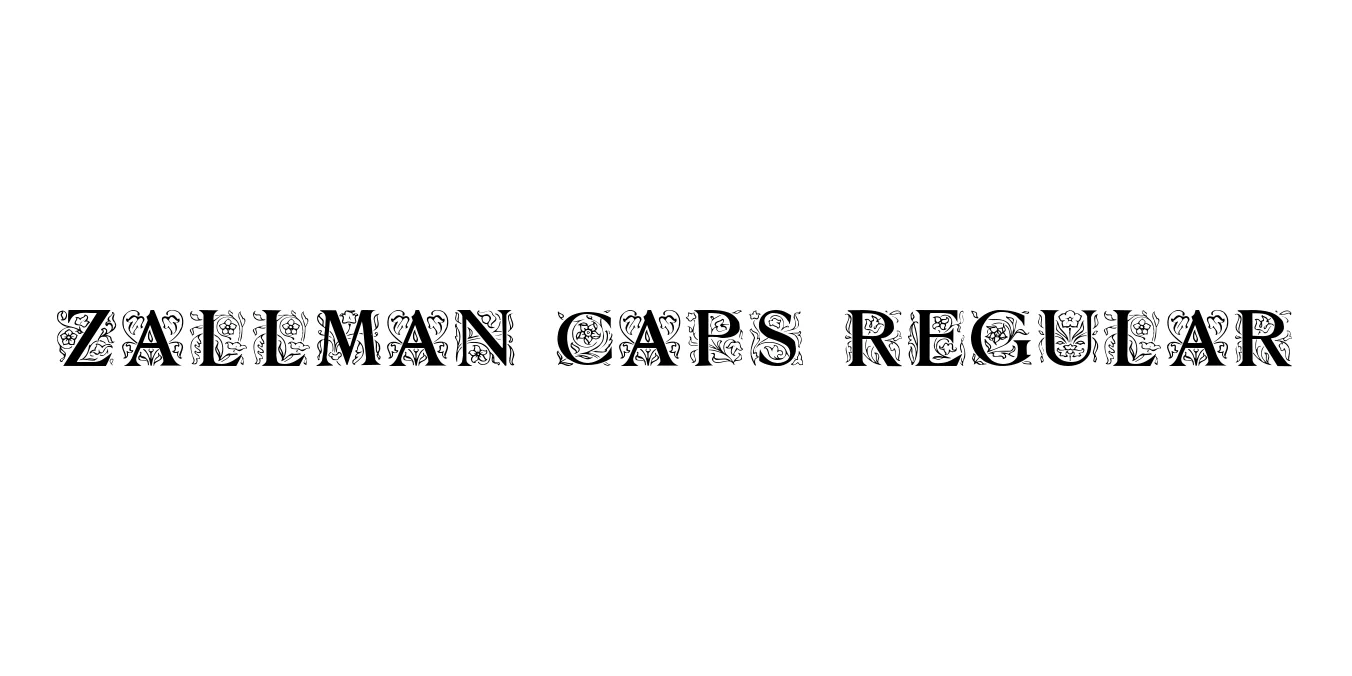
Zallman Caps Regular
Designed by David Rakowski
Zallman Caps Regular is a highly decorative and ornamental display typeface created by the prolific designer David Rakowski. Inspired by the tradition of historical illuminated manuscripts and Victorian-era type, this font features bold, block-like capital letters filled with intricate floral motifs and organic flourishes. It belongs to a celebrated series of decorative fonts produced by Rakowski during the early digital type era, characterized by its dense detail and classical elegance.
The typeface is specifically engineered for use as drop caps or initial capitals at the beginning of chapters or sections. Because of its complex internal patterns, it is not intended for setting body text or long titles, as the readability decreases significantly at smaller scales. Instead, it is most effective when used as a single focal point in high-end print media, vintage-themed graphic design projects, or luxury branding where a touch of Renaissance flair is required.
Zallman Caps Regular Best Uses
Excellent for magazine drop caps to draw attention to the start of an article.
Ideal for historical fiction or classical literature chapter openings.
Perfect for wedding stationery or elegant event headers that require a classical touch.
Suited for boutique brands or artisanal products looking for an ornate, historical aesthetic.